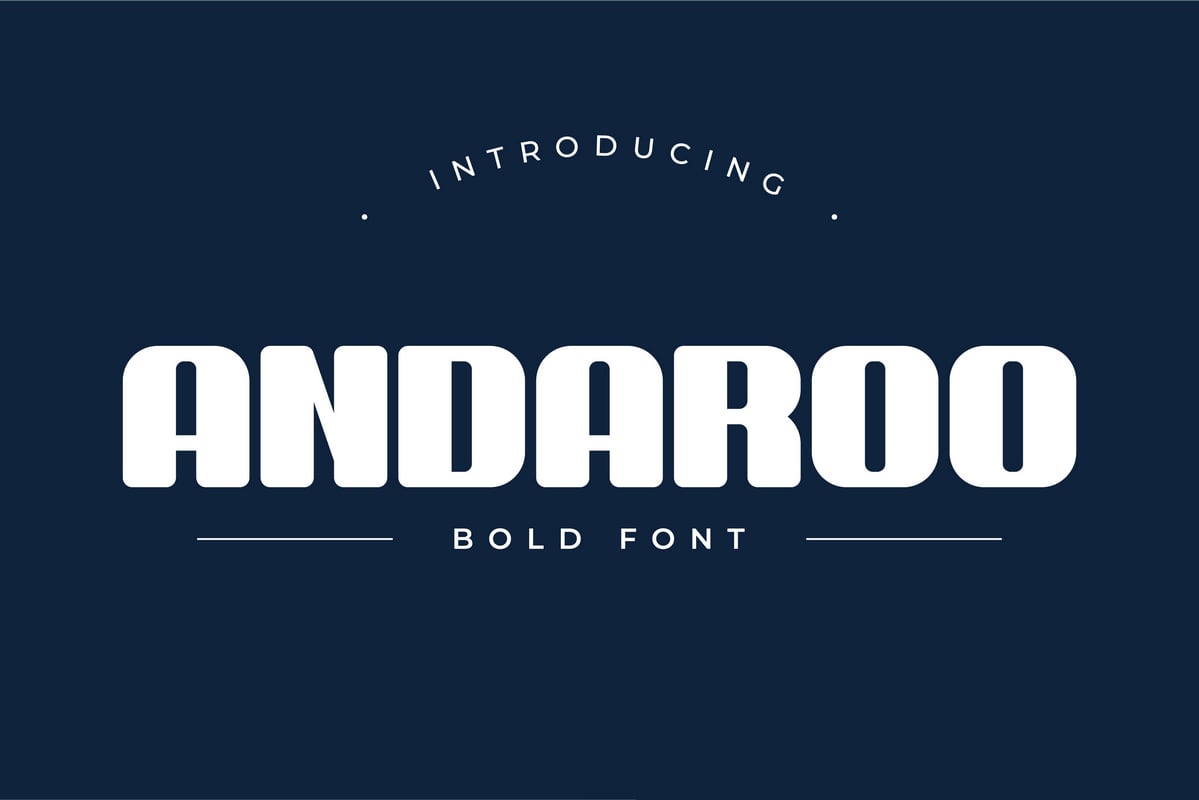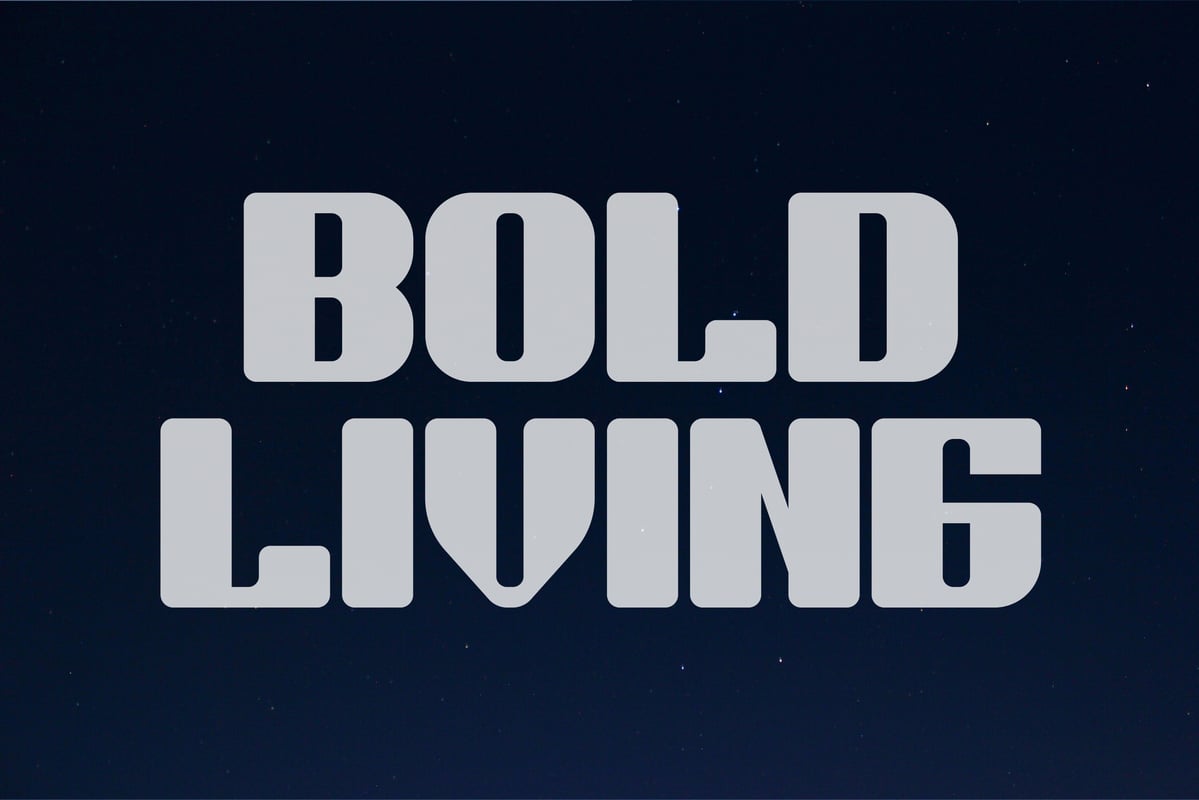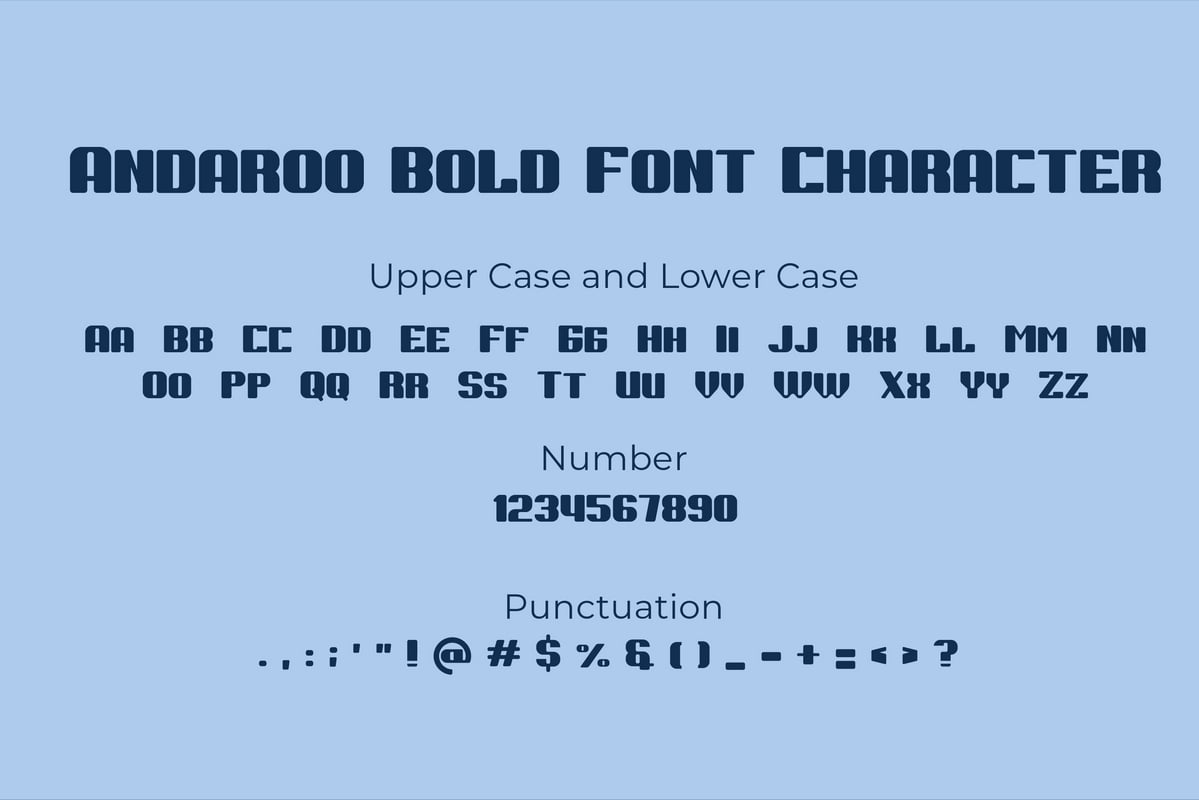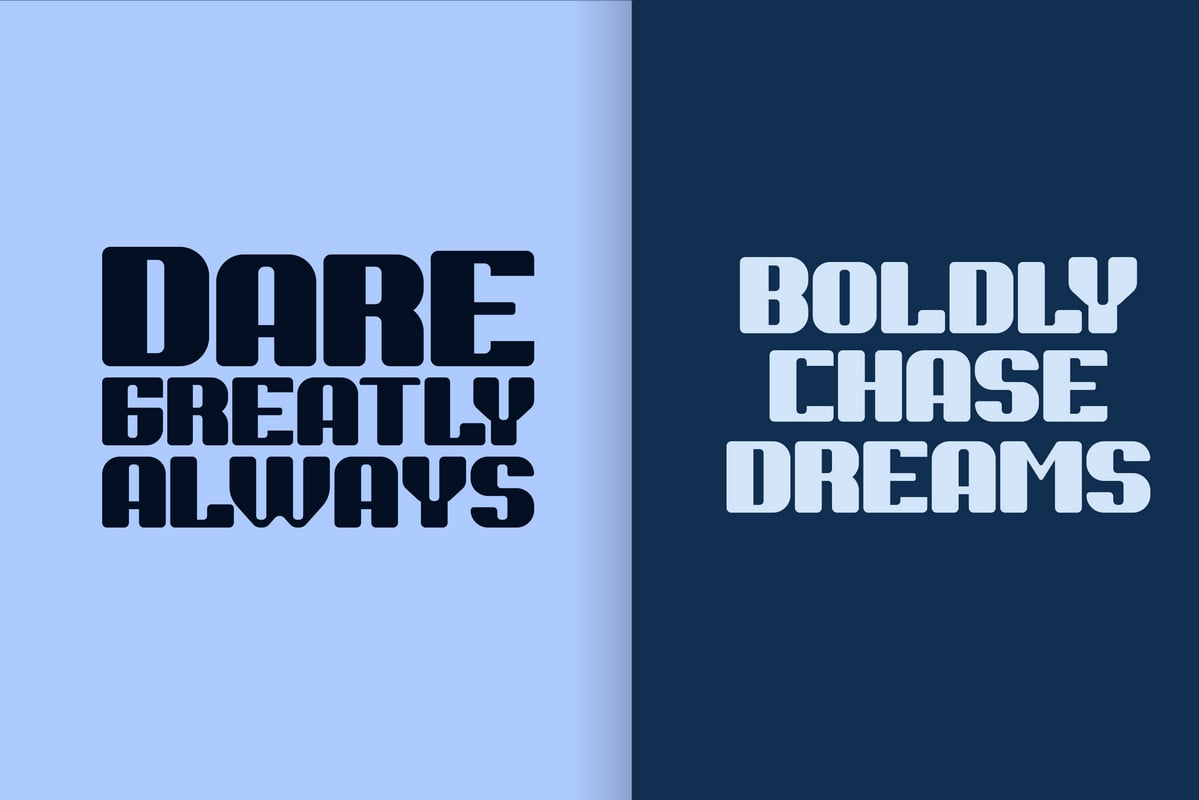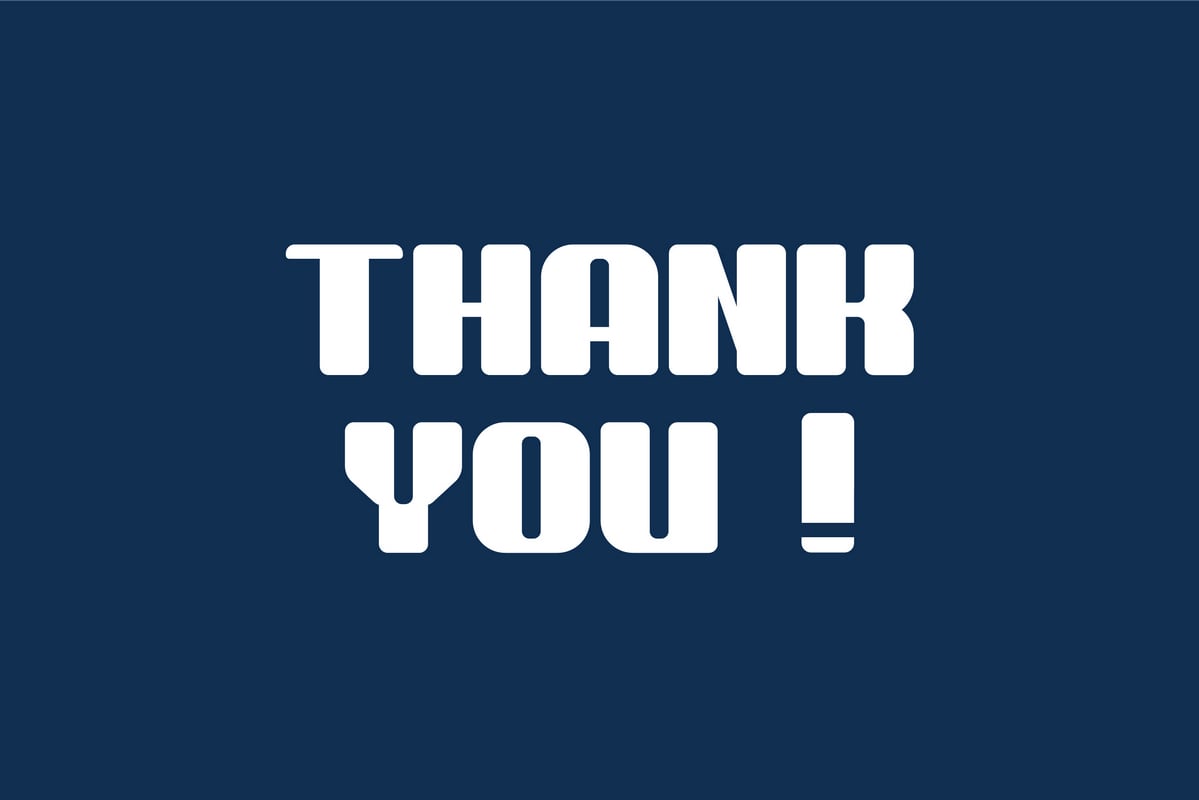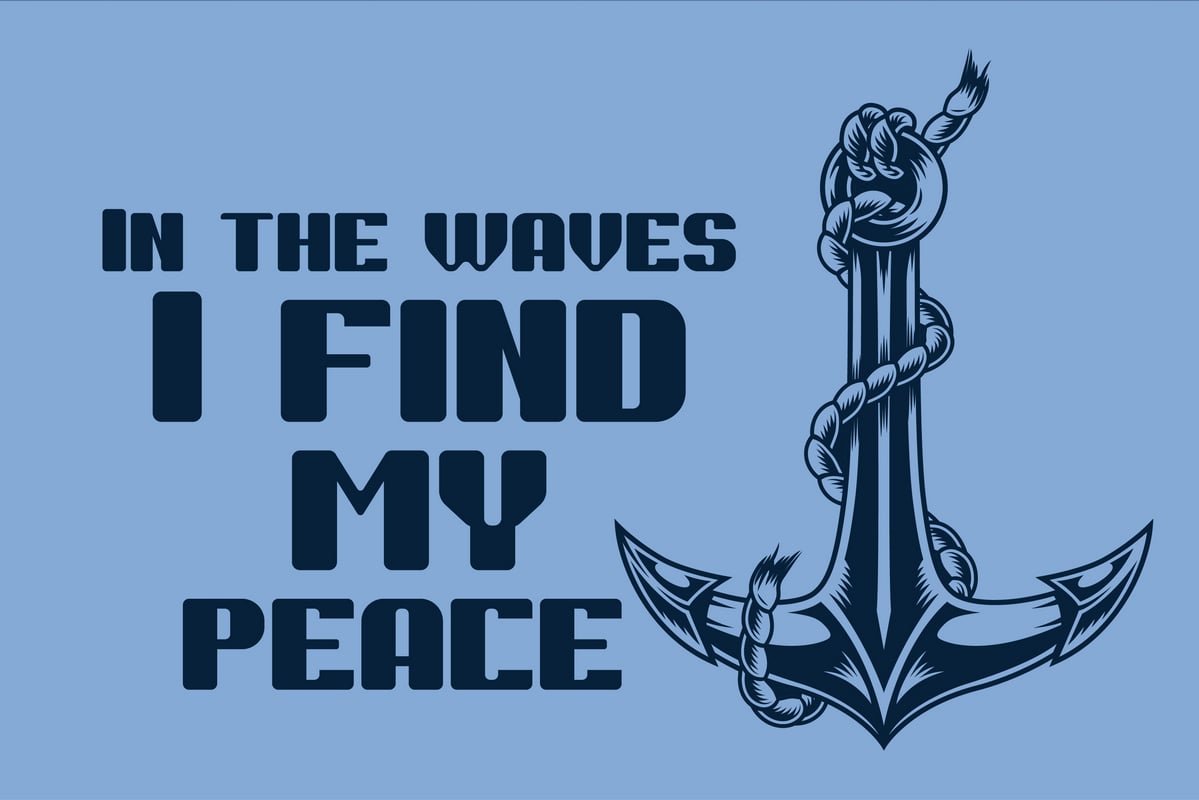
Andaroo Bold Font
Introducing “Andaroo Bold Font” – Your Gateway to Distinctive Typography!
Unleash the power of expression with Andaroo Bold Font, a dynamic typeface meticulously crafted to elevate your designs to unprecedented heights. Whether you’re a seasoned designer or a budding creative, Andaroo Bold Font is your ultimate tool for making a bold statement that demands attention.
Elevate your designs to new heights with Andaroo Bold Font. Unlock the power of bold typography and leave a lasting impression that resonates with your audience. Get your hands on Andaroo Bold Font today and unleash your creativity like never before!